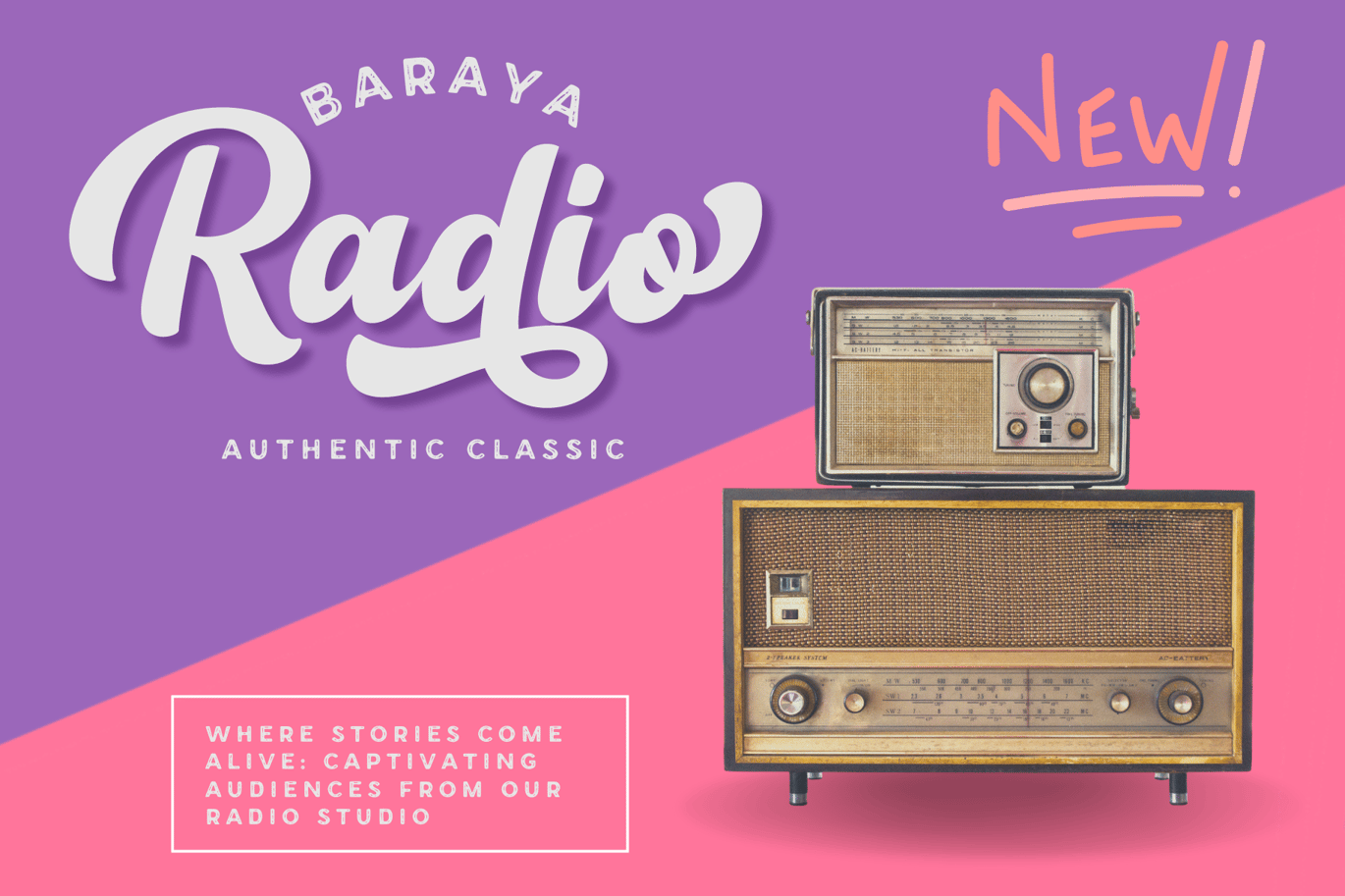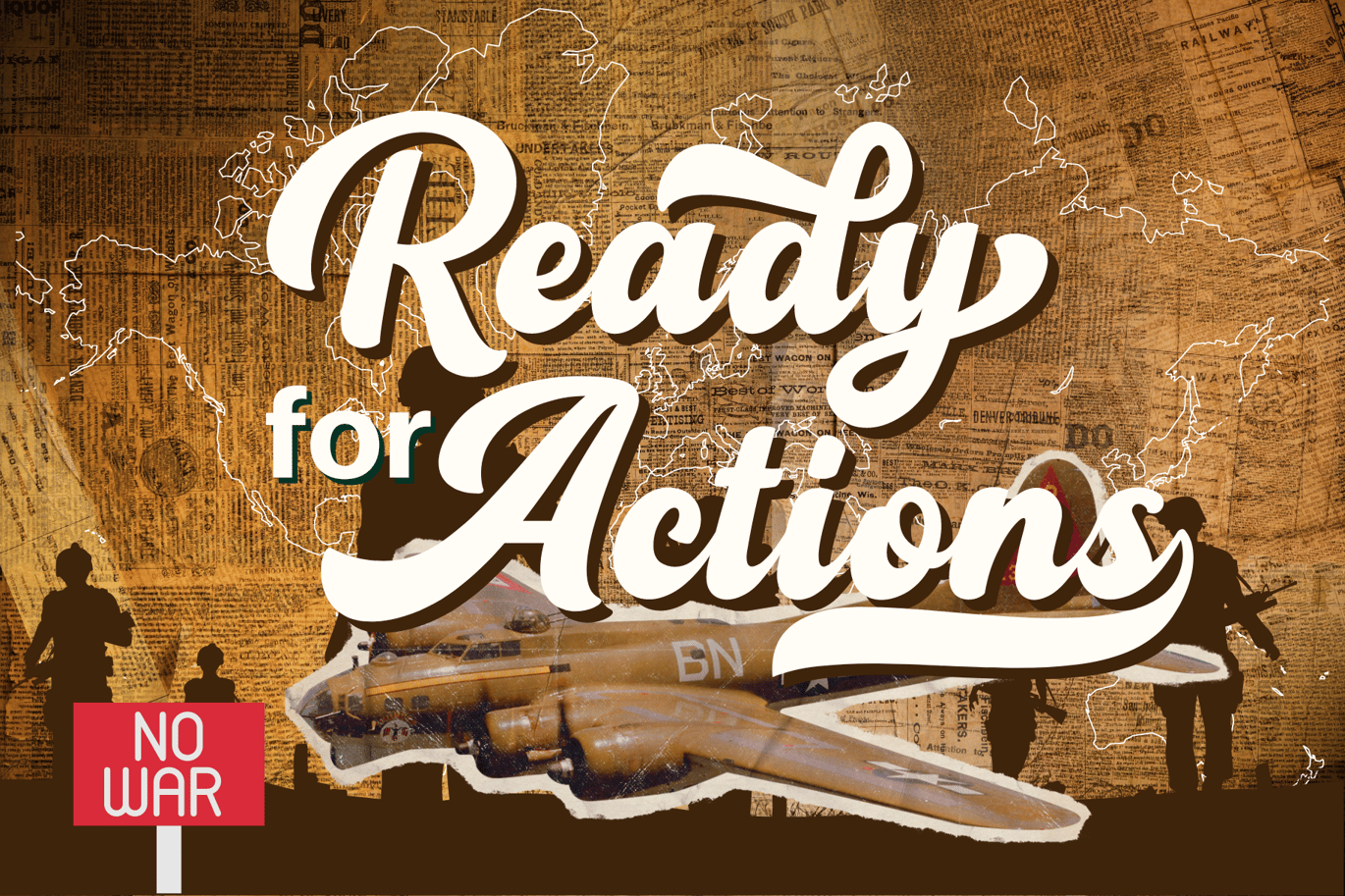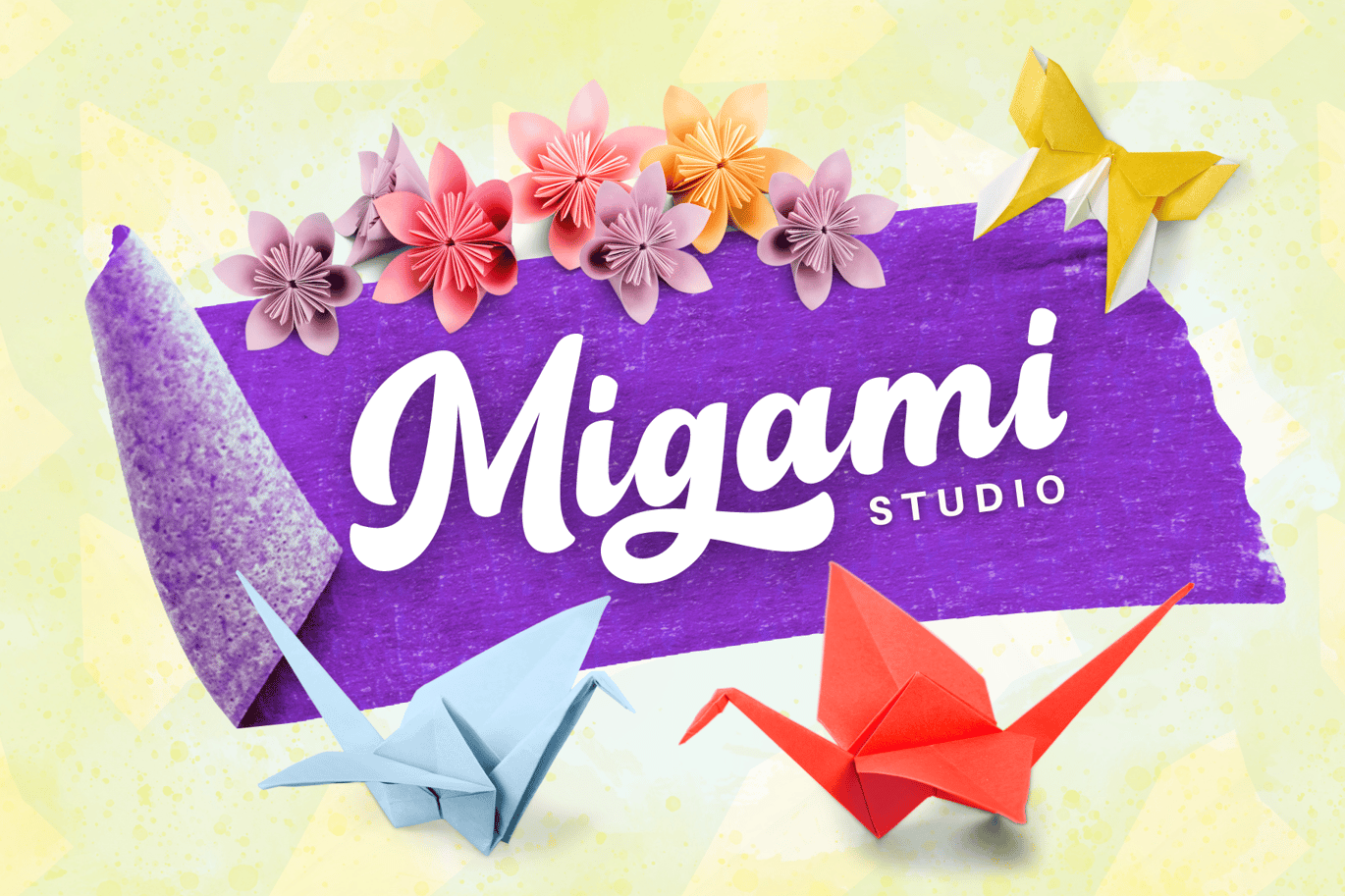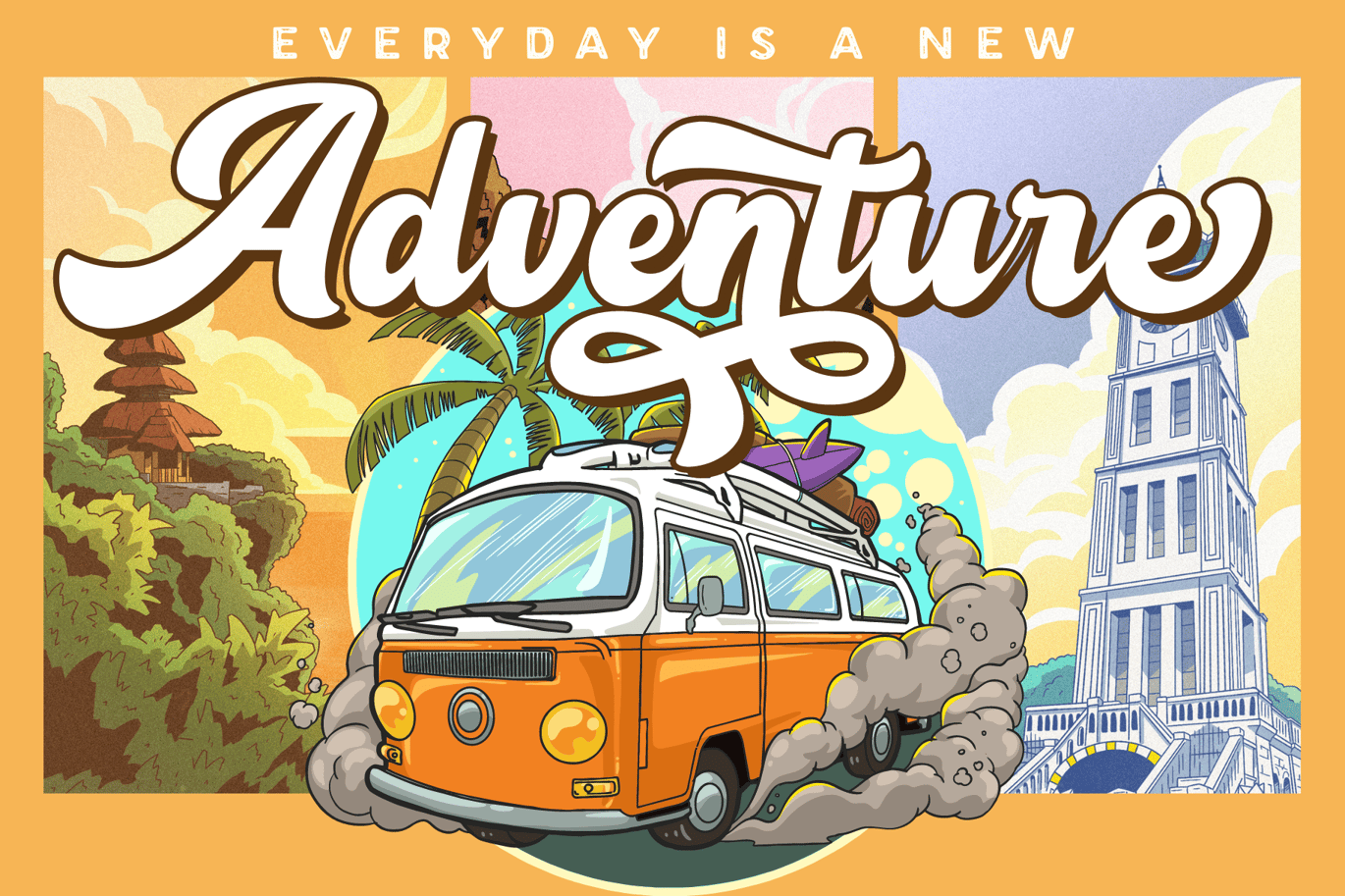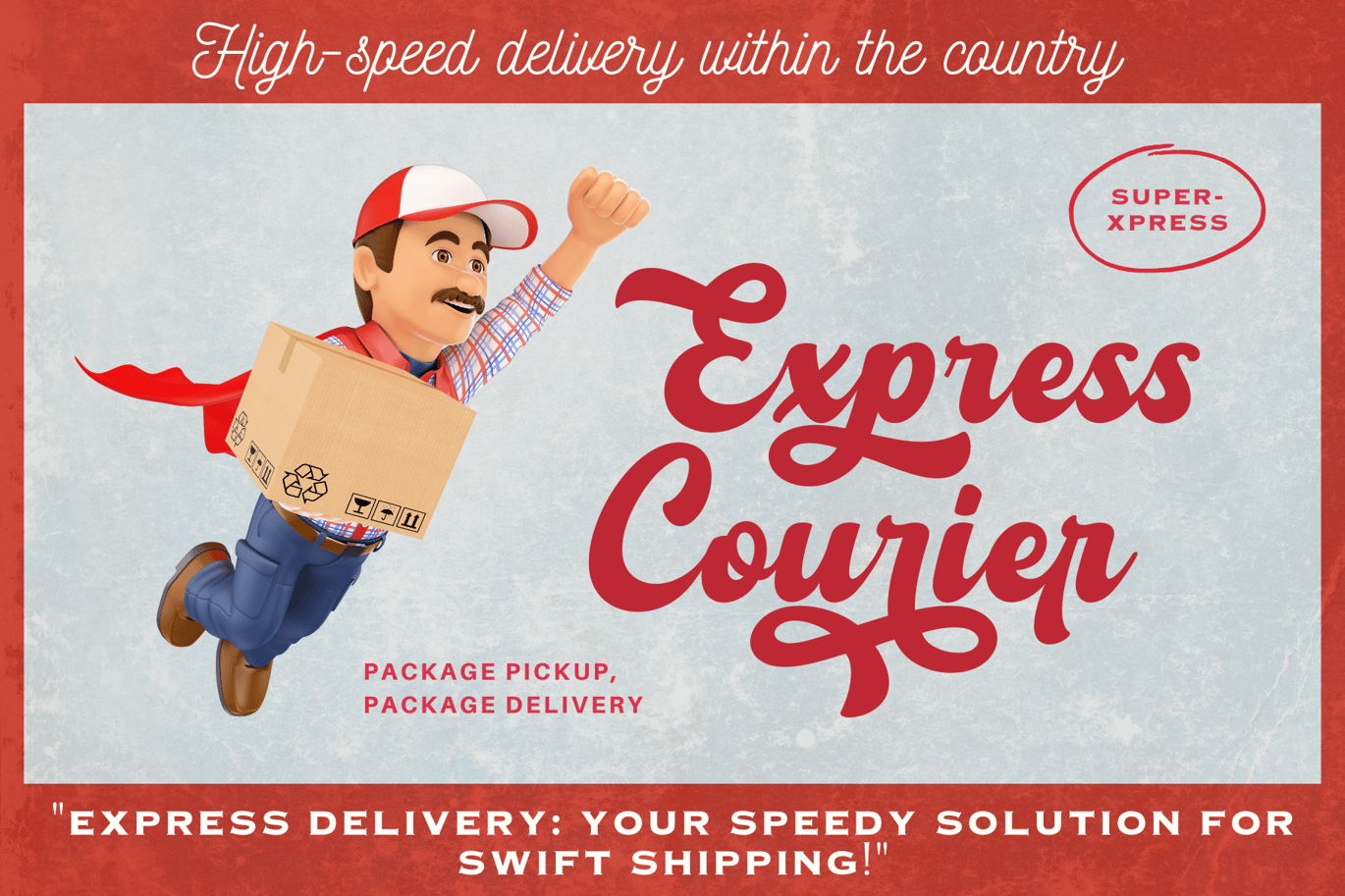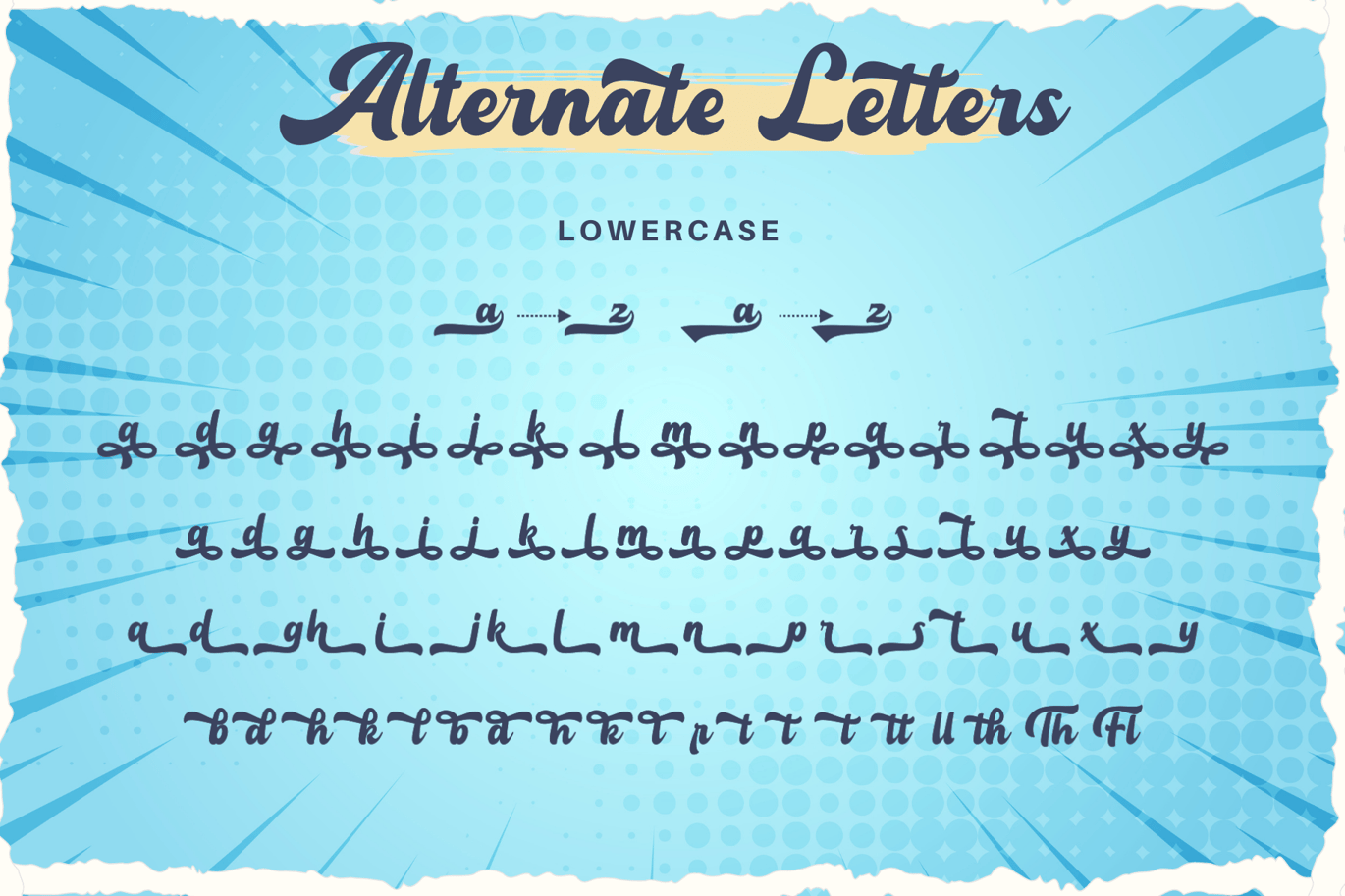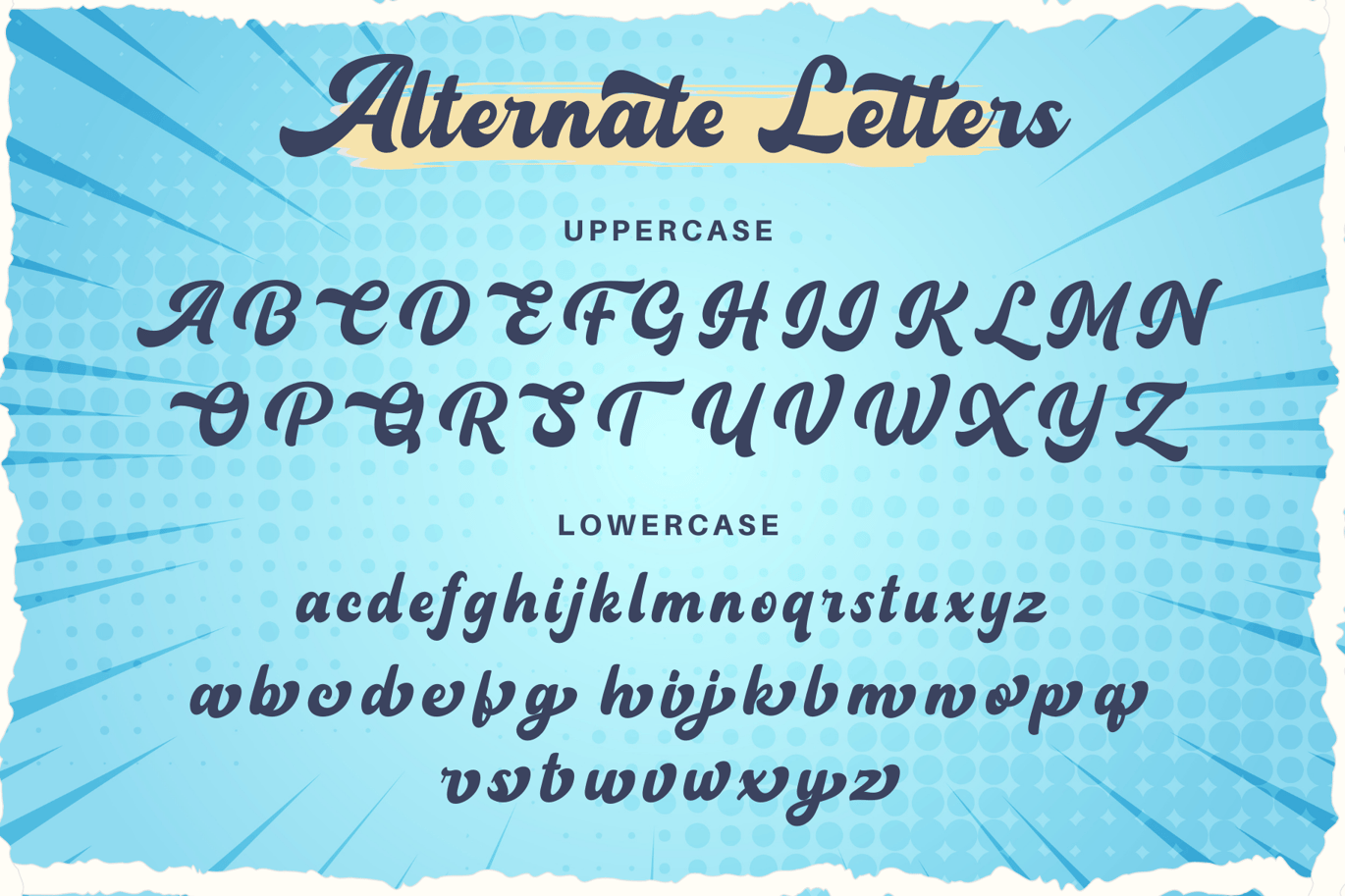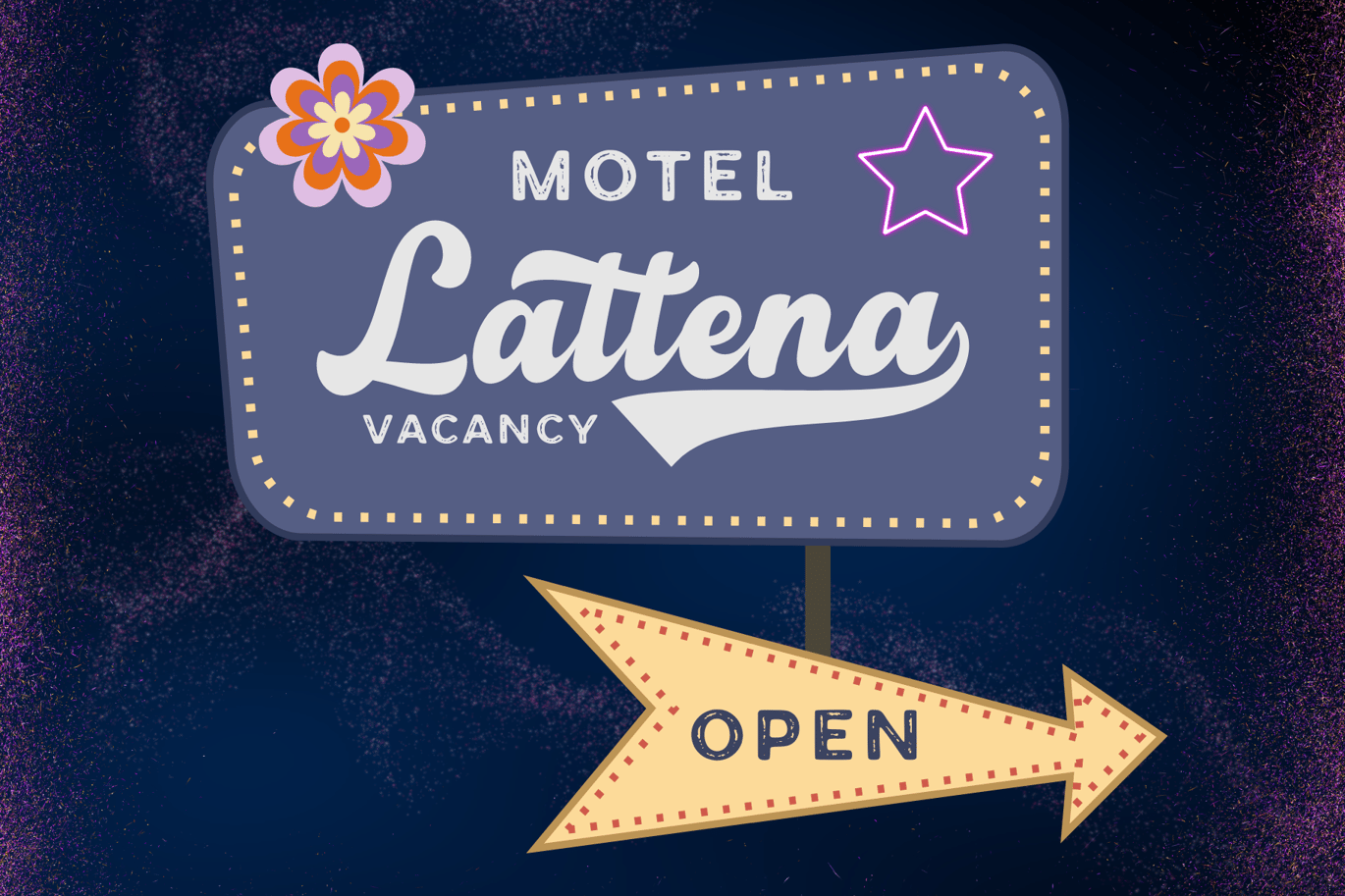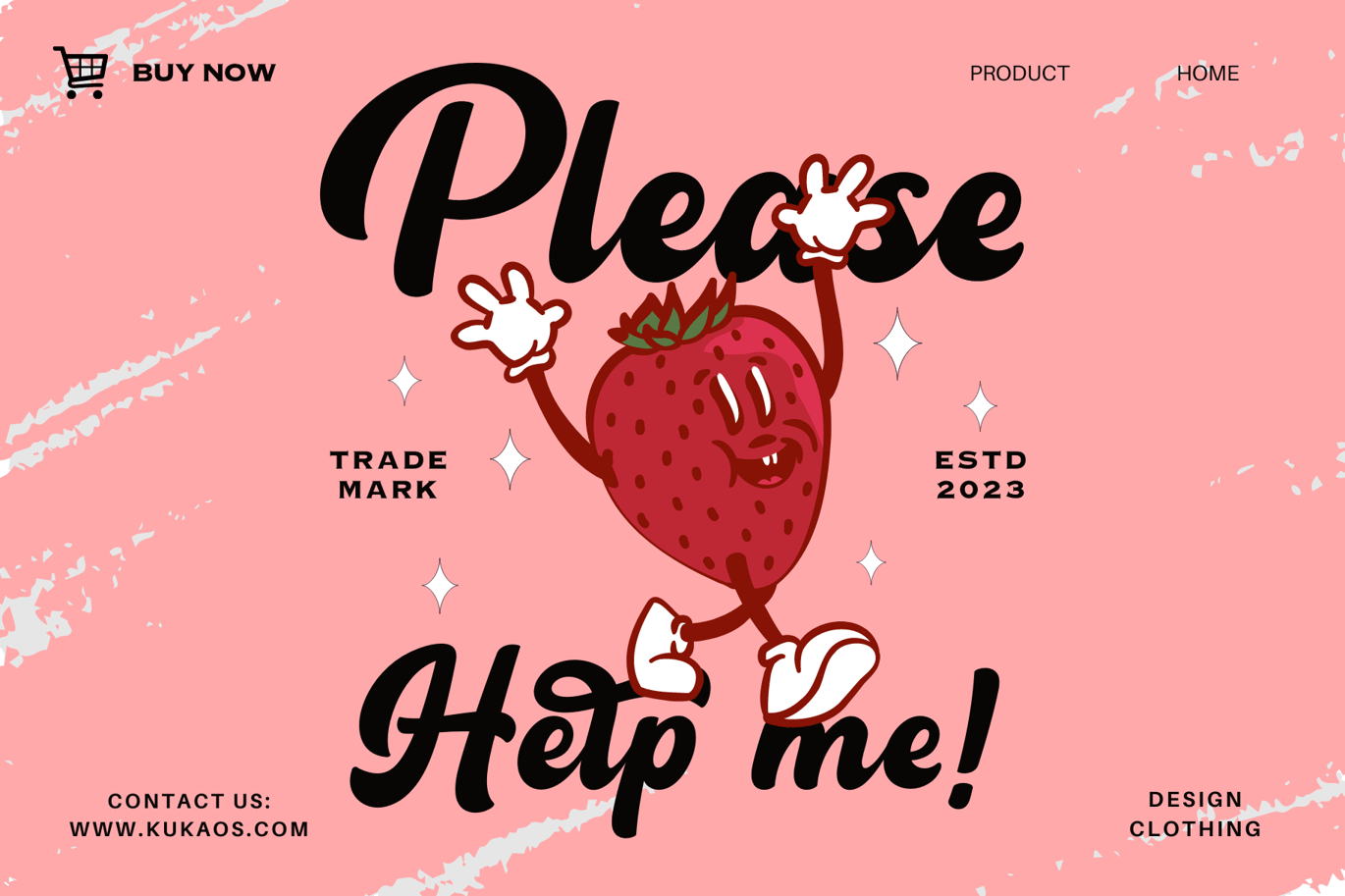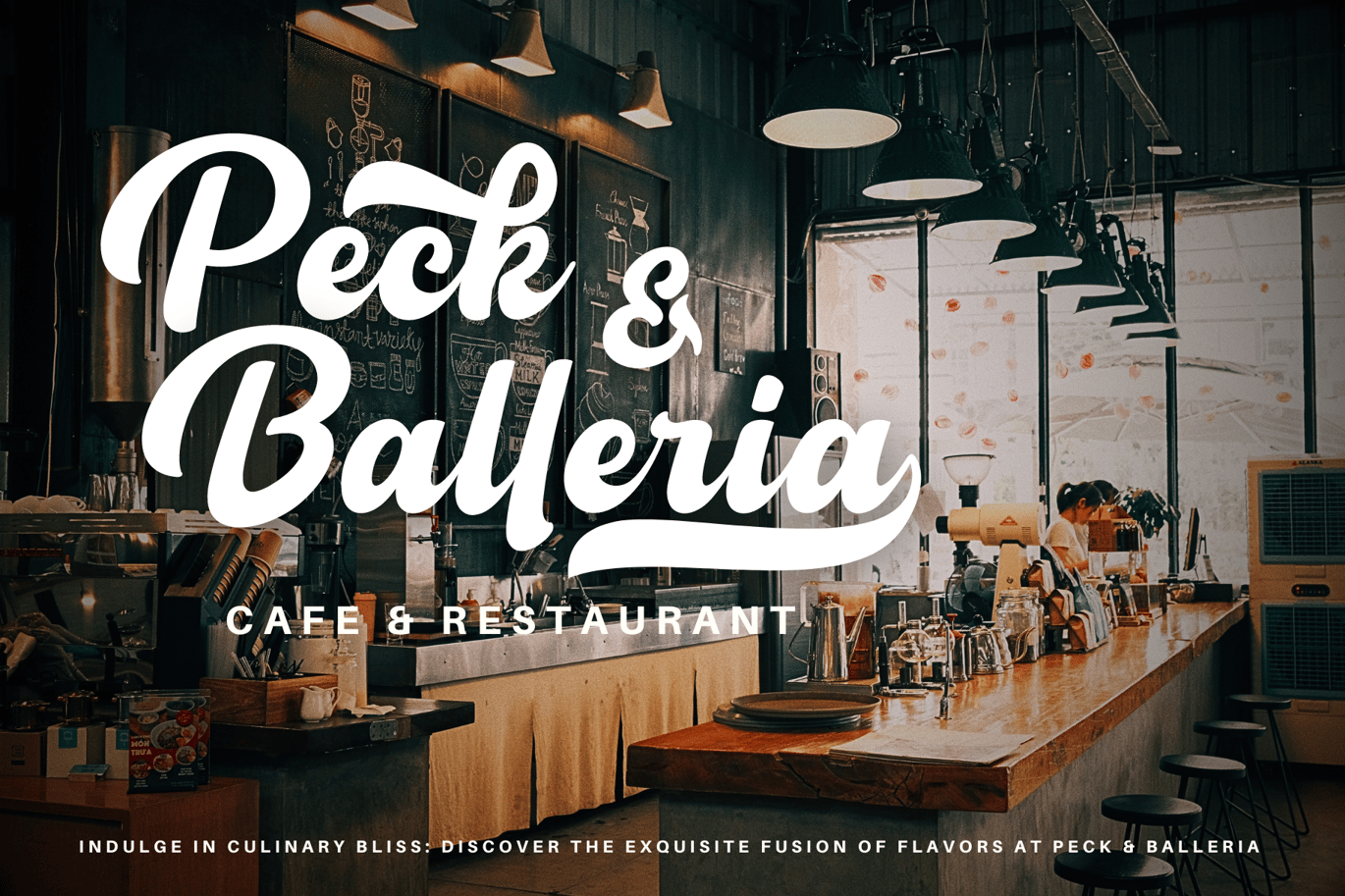
Restand – Retro Script Font
“Restand” is a captivating retro bold script font that brings vintage aesthetics and boldness to your designs. With its expressive letterforms and dynamic strokes, it adds a touch of nostalgia and impact. Perfect for logos, posters, and branding that aims to make a bold statement. Embrace the retro vibes with the timeless appeal of “Restand” font.
- Uppercase and lowercase letters
- Tons of Uppercase and lowercase alternates
- Multilingual, numerals, and punctuation